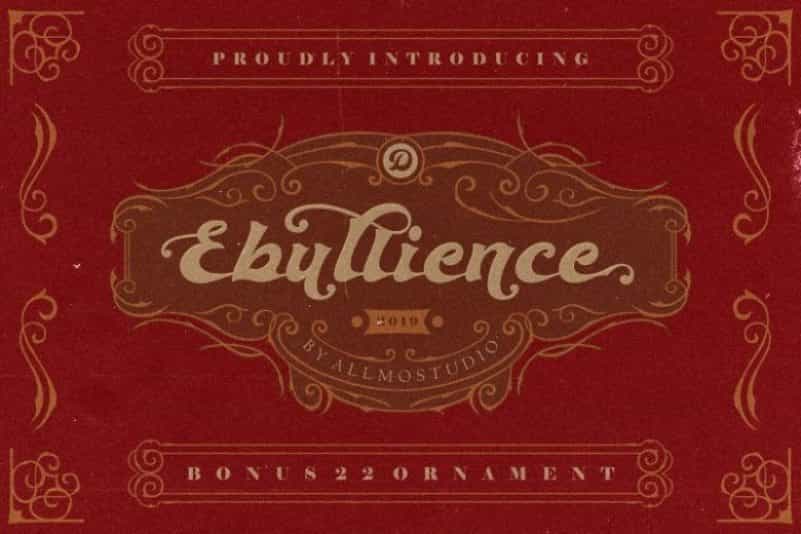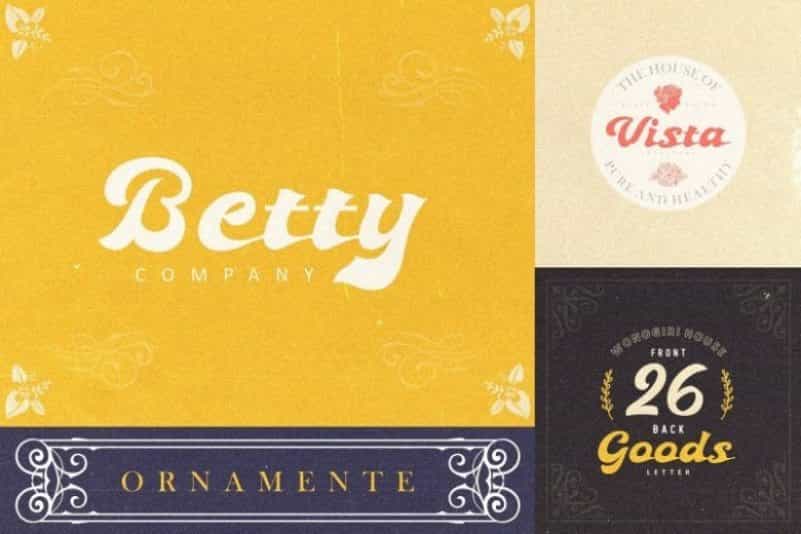
Ebullience font has elements of retro and vintage and at the same time it has some modern touch. Following the style of signs and badges the font Pirates Face provides the uppercase and lowercase letters, numerals, punctuation marks and the set of various additional characters in opentype.